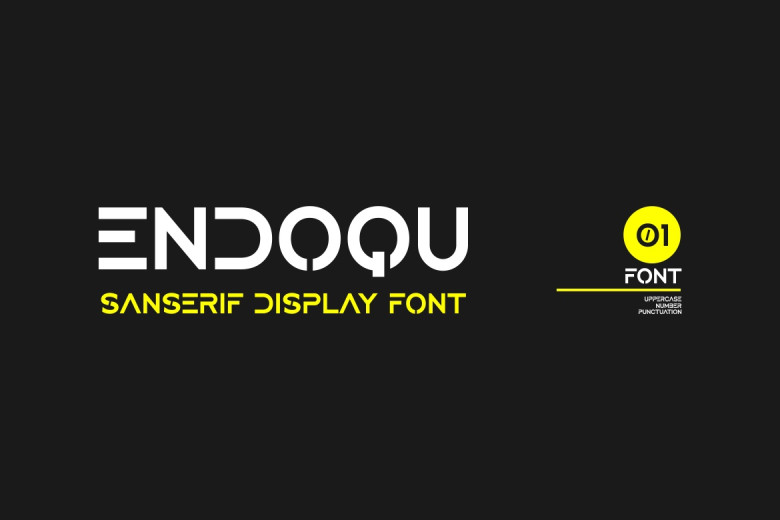
Endoqu Font
Endoqu is a simple and clean display font designed to highlight your work. Ideal for showcasing logos, wedding apparel such as fashion or other wedding-related products, greeting card lookbooks or marketing promotions or anytime you wish to appear classy and elegant without appearing pretentious or formal.
Endoqu Display Font